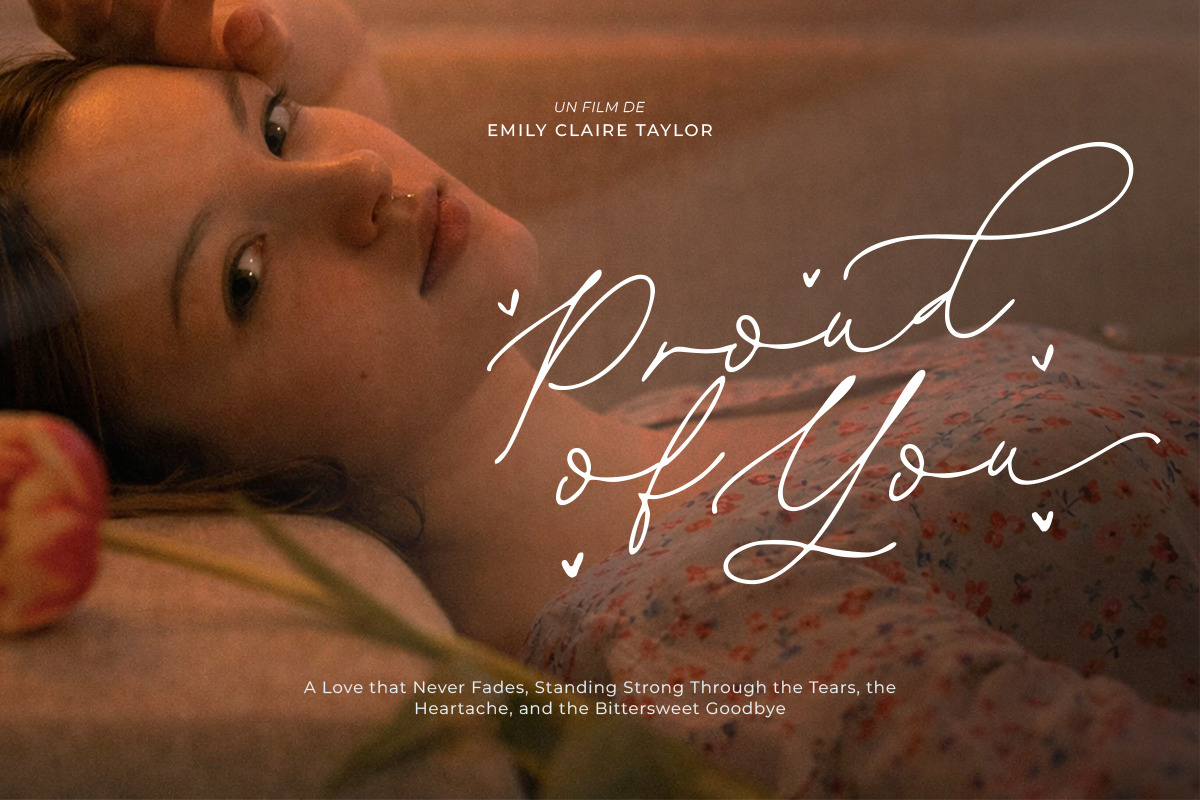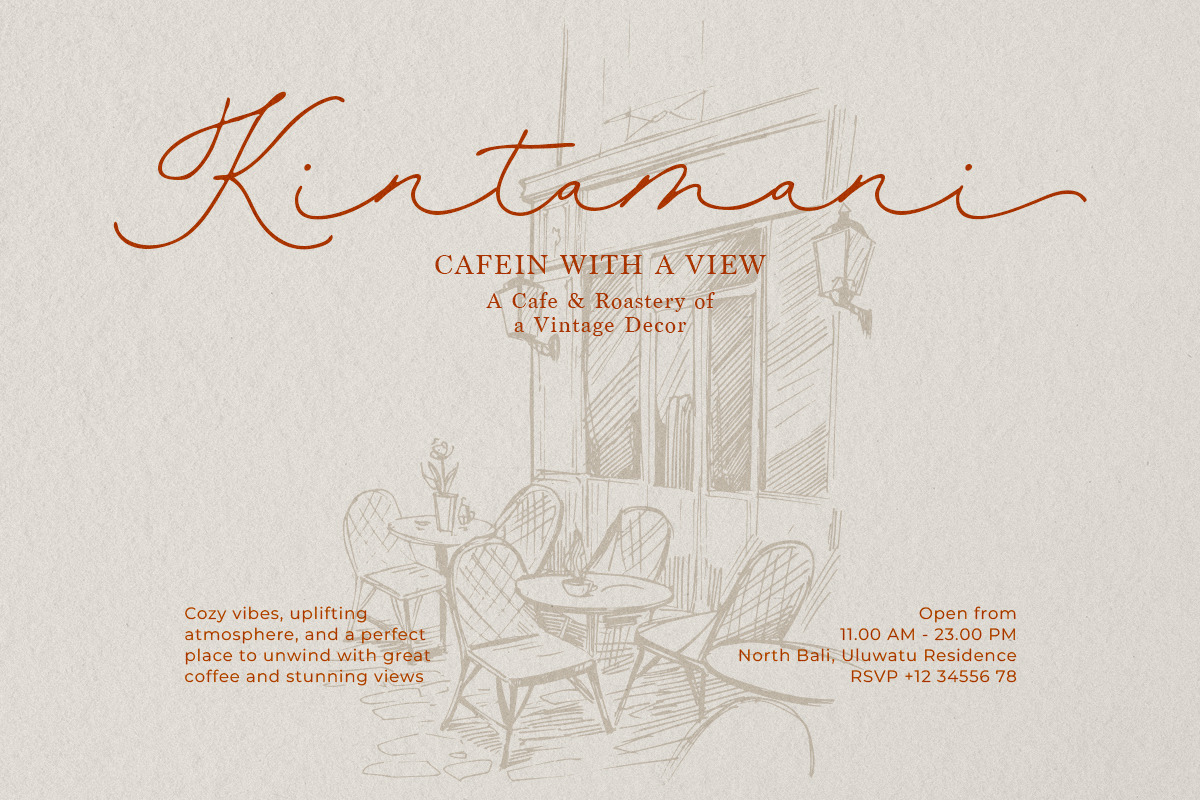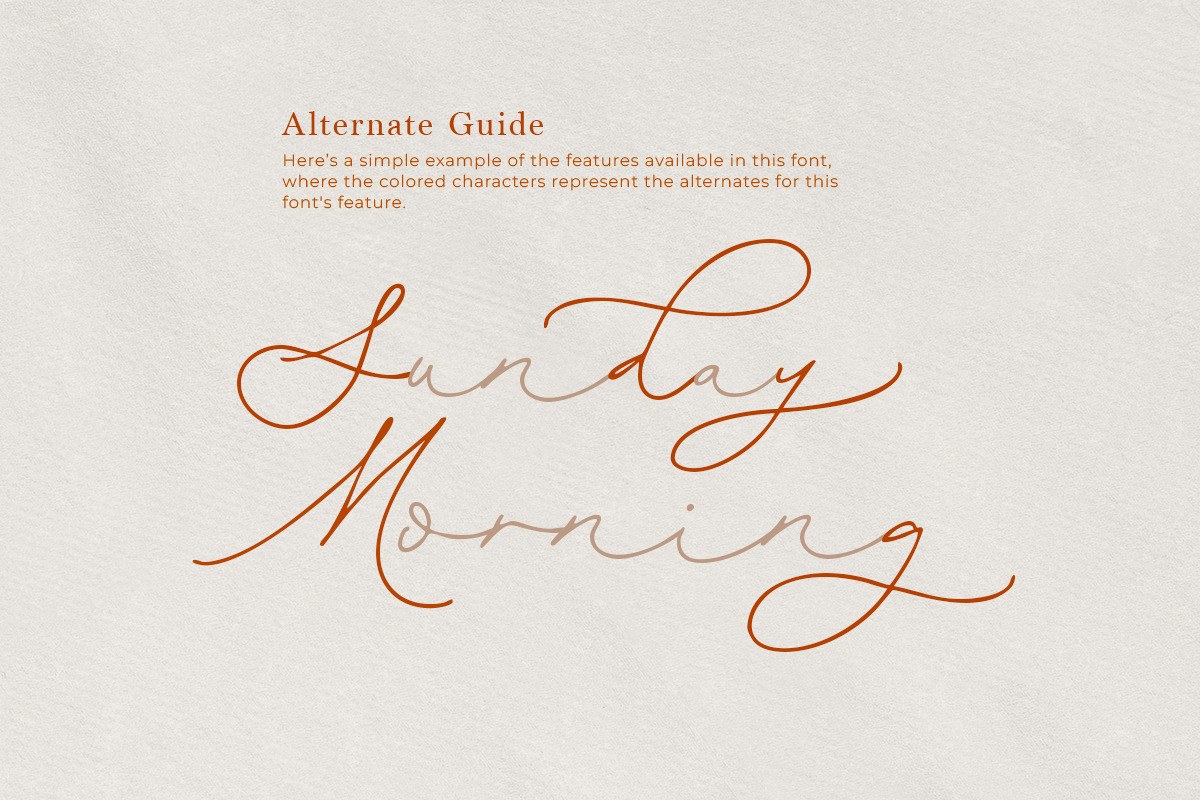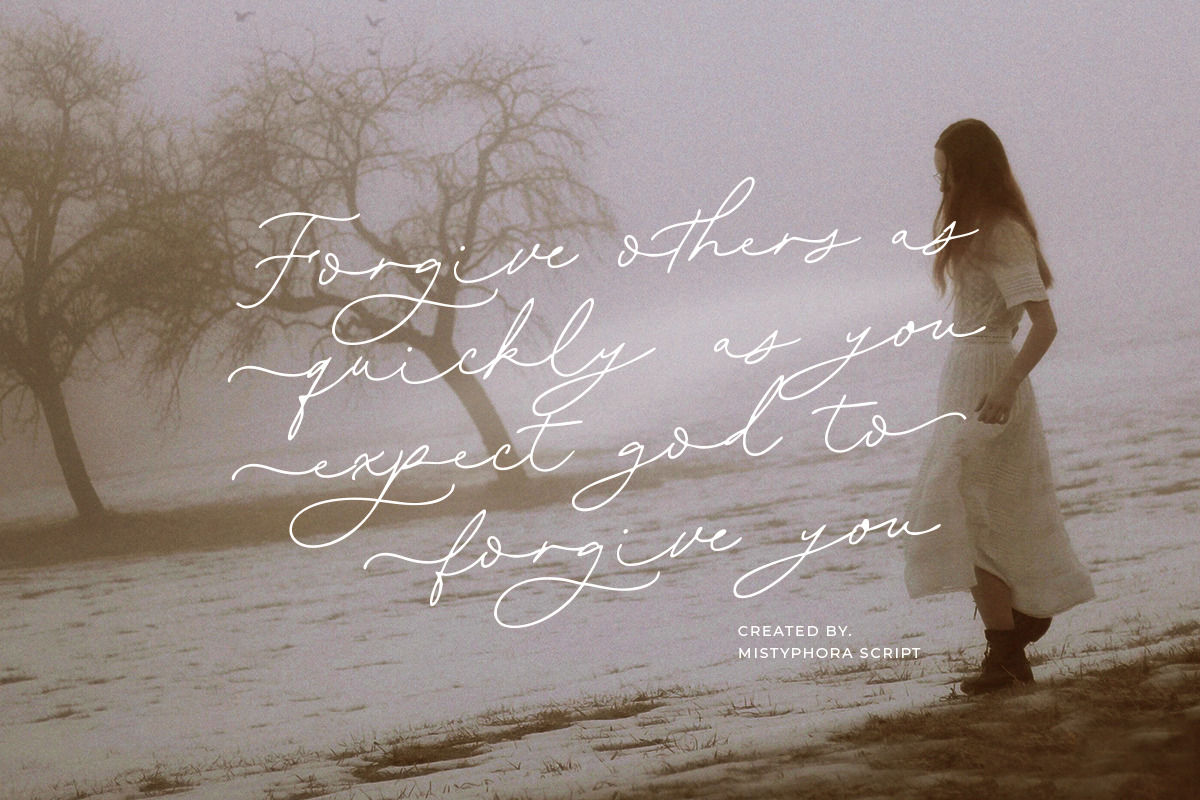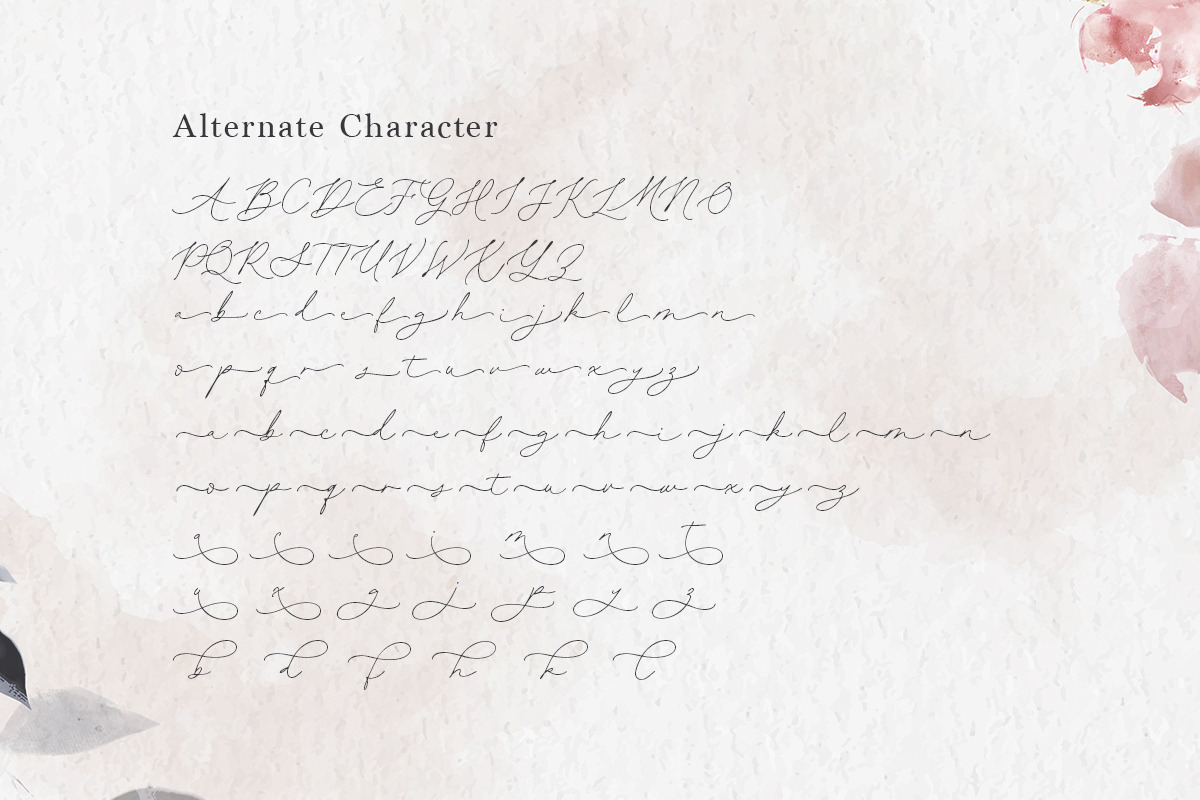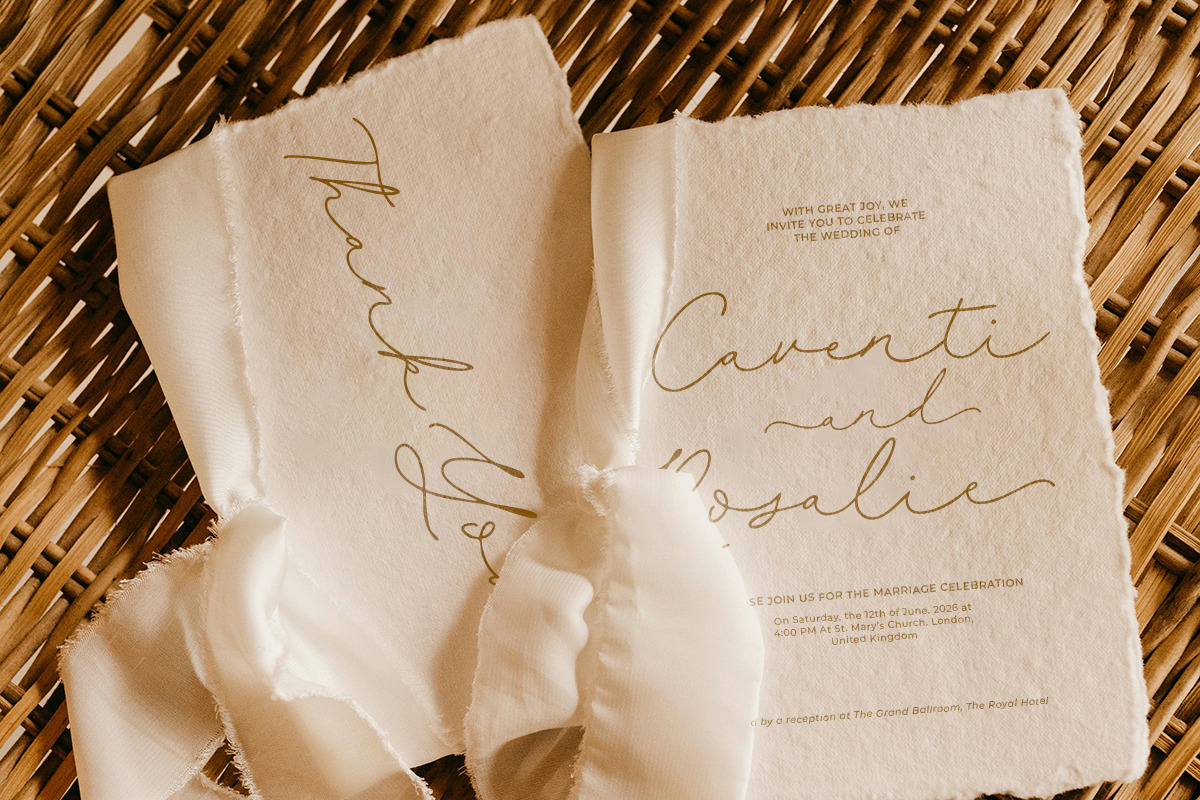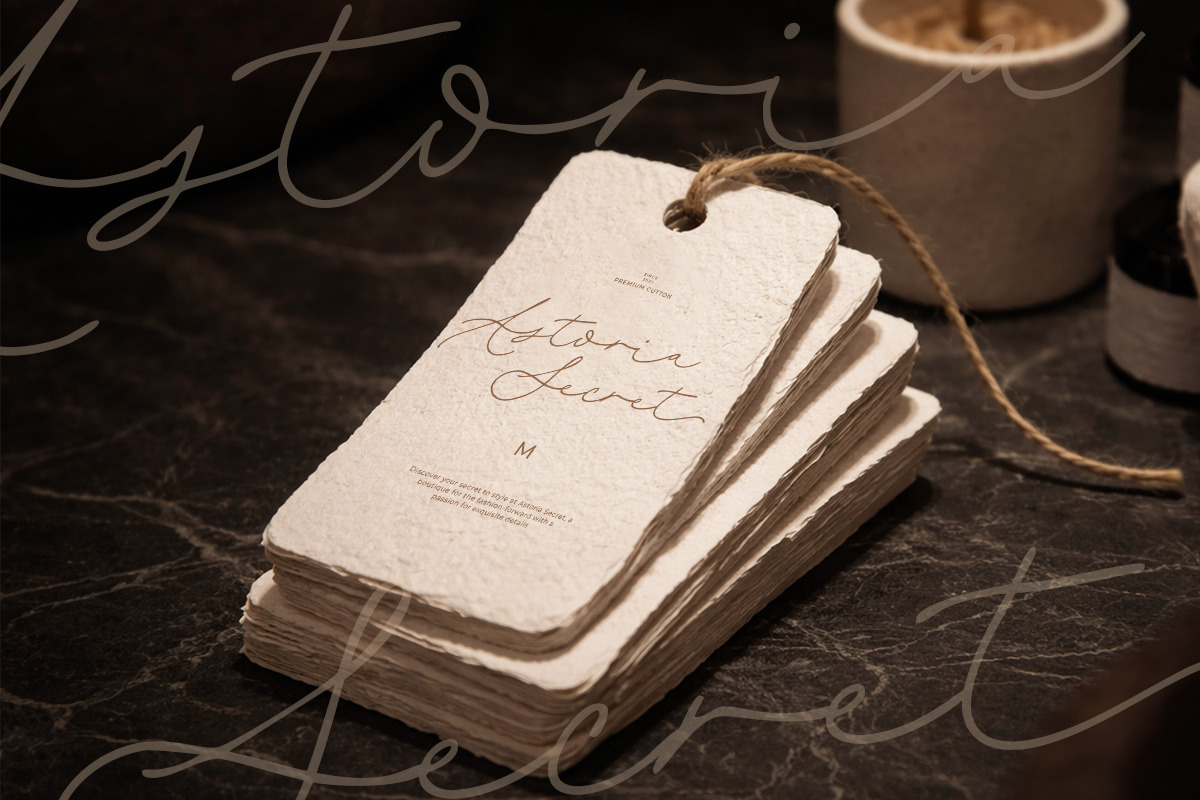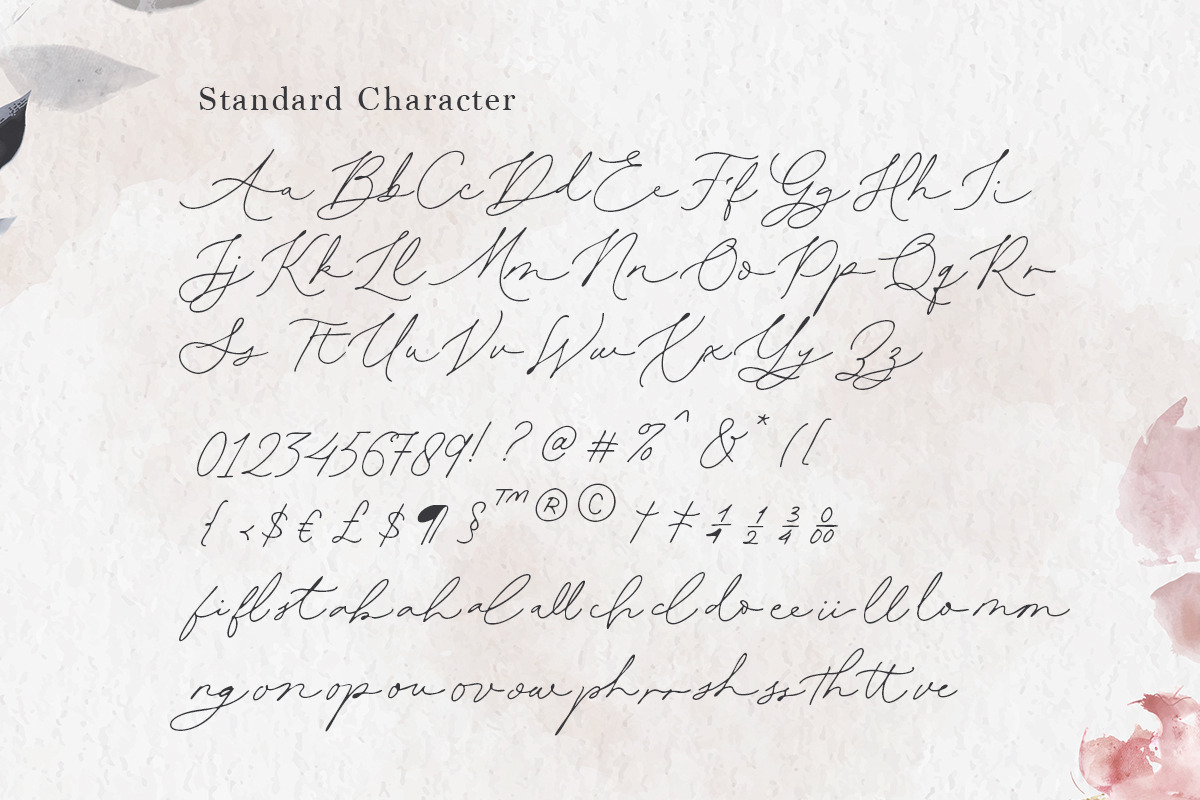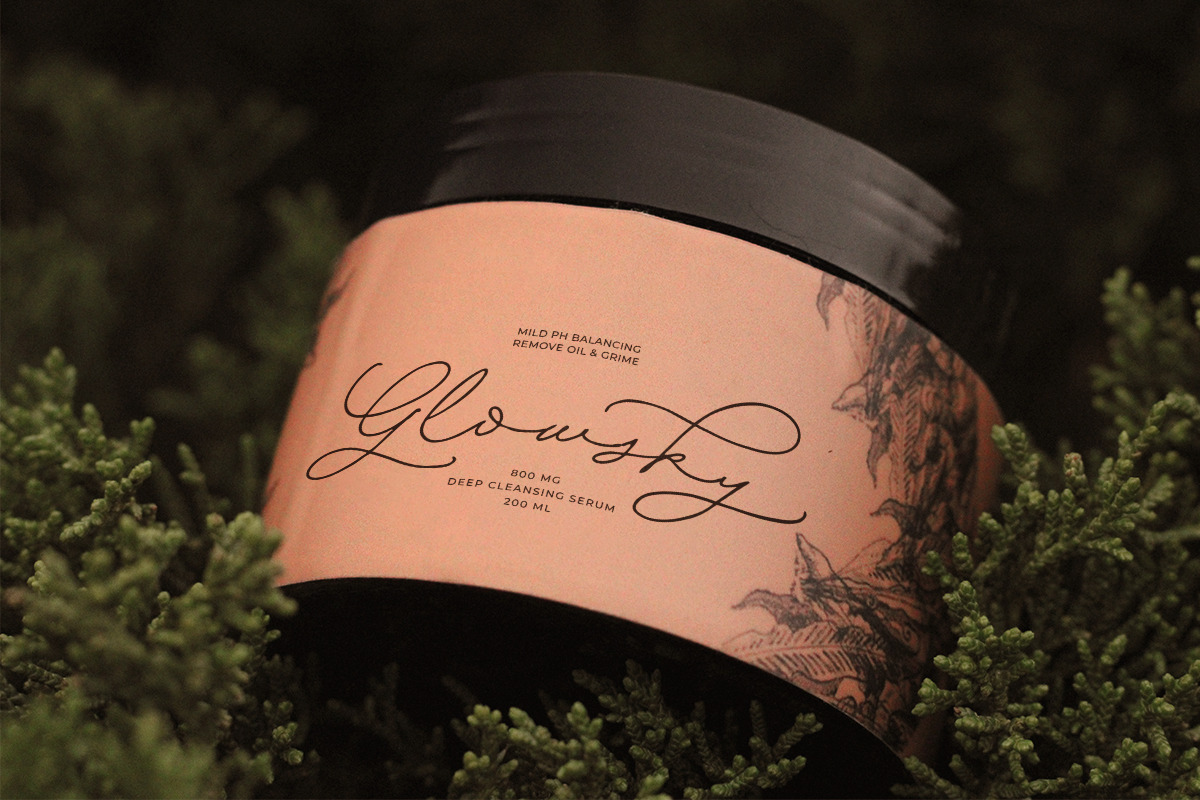
Mistyphora - Handwritten Script
Mistyphora is an elegant handwritten script with stylish alternates and ligatures. You can use this font for any purpose such as logo, branding, quote, and especially wedding invitation. With terminal and end swash, you can use to make your project looks stunning. This font also support multi language.